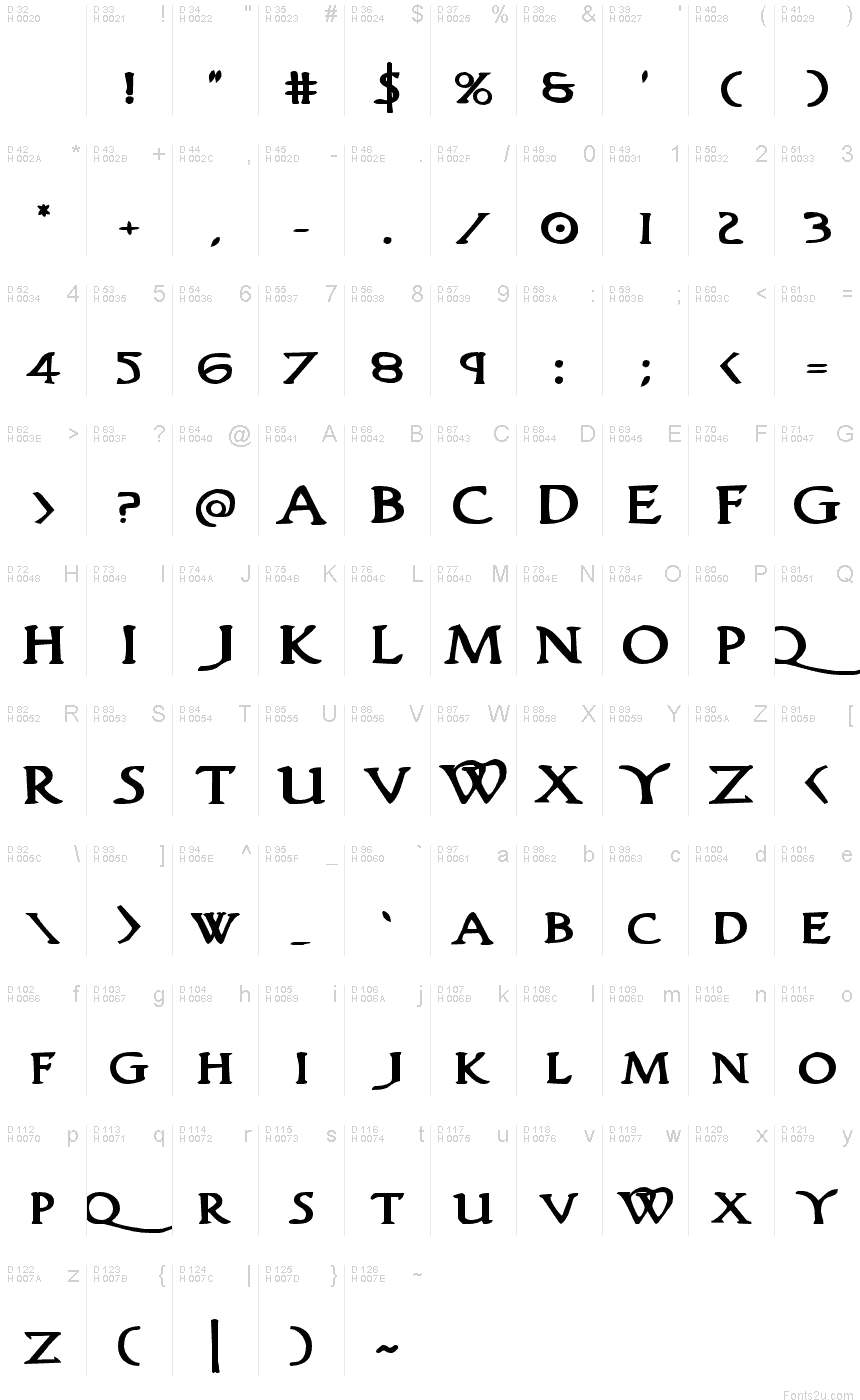
Woodgod Bold Expanded, designed by Iconian Fonts in 2012, is a free old-school display font with broad, forceful capitals. Its uneven flared strokes and sharp, wedge-like ends recall hand-cut lettering. The shapes feel deliberately unruly.
Fantasy and folk audiences will recognize its rough-hewn style in game branding and event posters. Album covers and tavern signs benefit from its dark, theatrical silhouette. Beside woodcut creatures or medieval scenery, the irregular contours become part of the illustration.
Prezentacja i próbka wizualna czcionki Woodgod Bold Expanded
Mapa znaków czcionki Woodgod Bold Expanded
Mapa znaków czcionki Woodgod Bold Expanded: Podstawowy łaciński, strona 1
Glify czcionki Woodgod Bold Expanded — Podstawowy łaciński, strona 1
Woodgod Bold Expanded